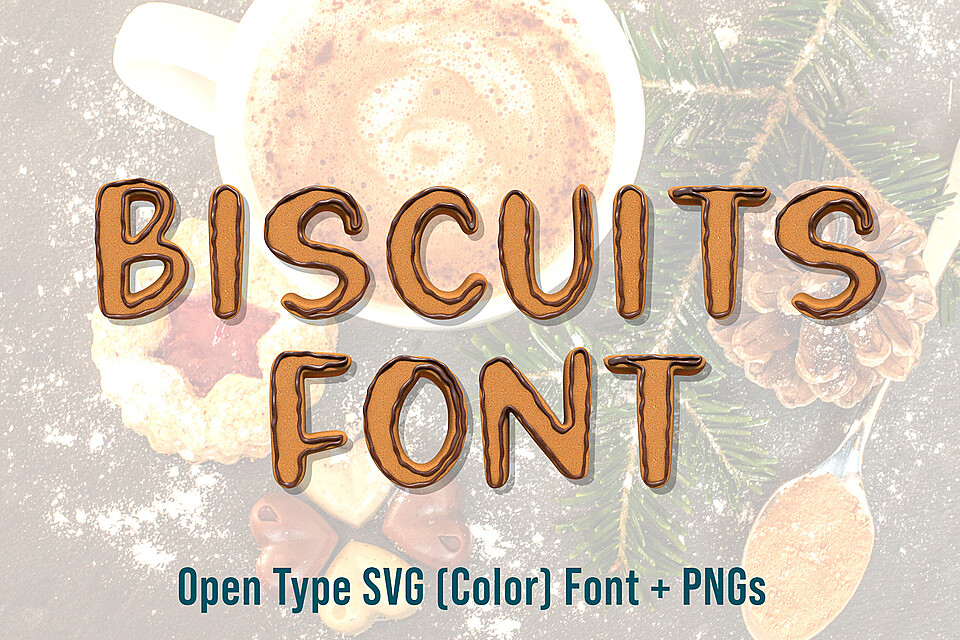
Biscuits Opentype SVG Font & PNGs
Biscuits Font
Each letter is modelled and rendered in a 3D Application, also converted into an Opentype SVG (Color) Font.
• Basic western uppercase letters
• Numbers